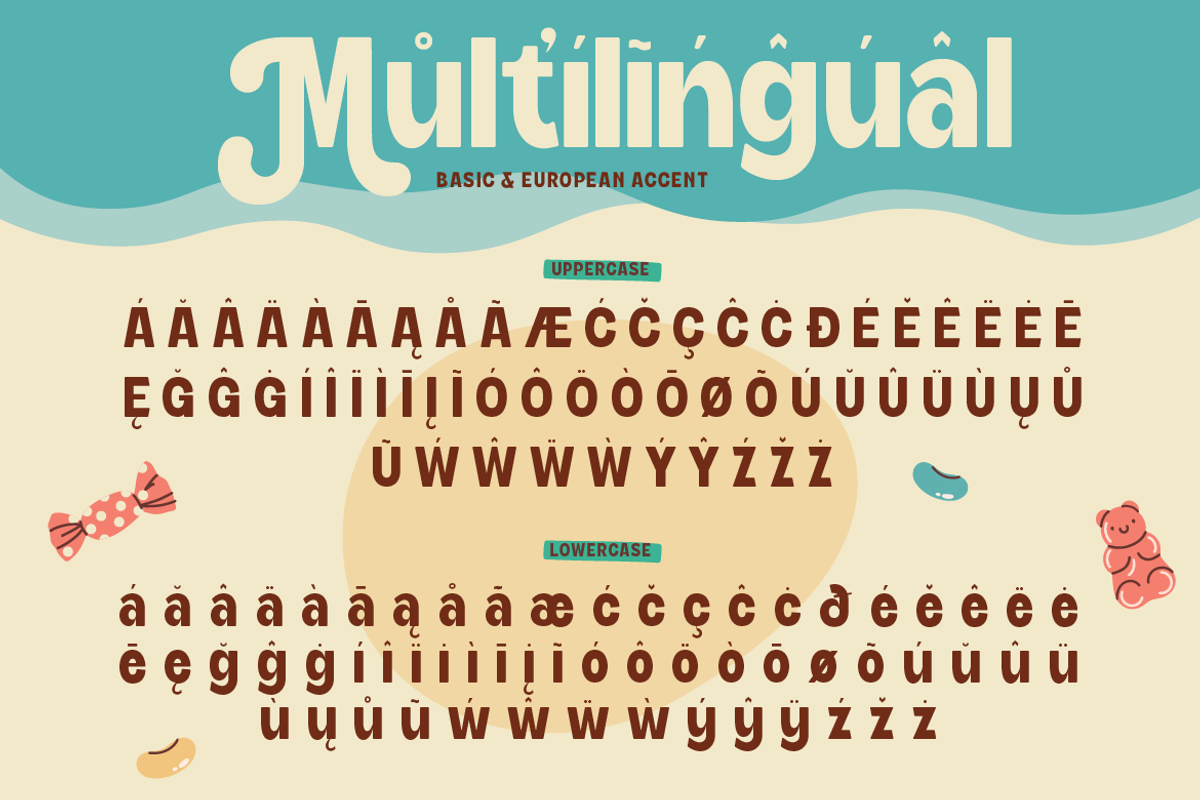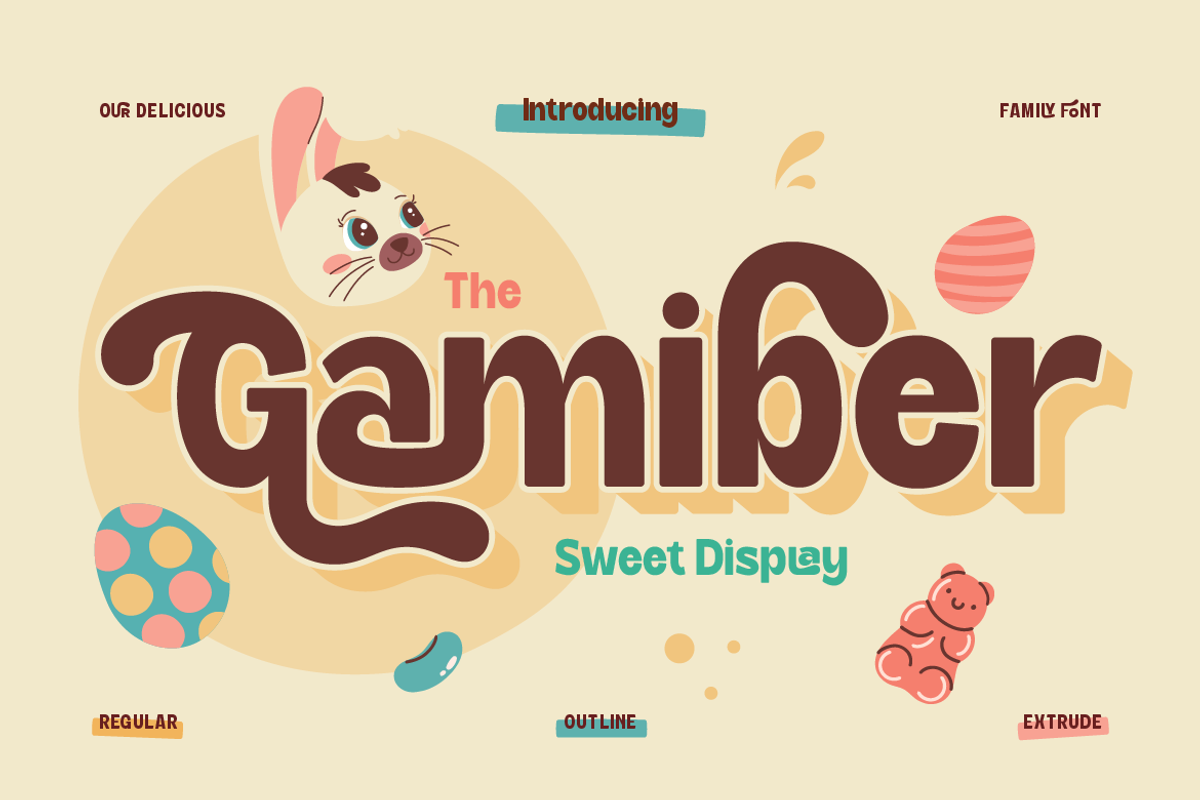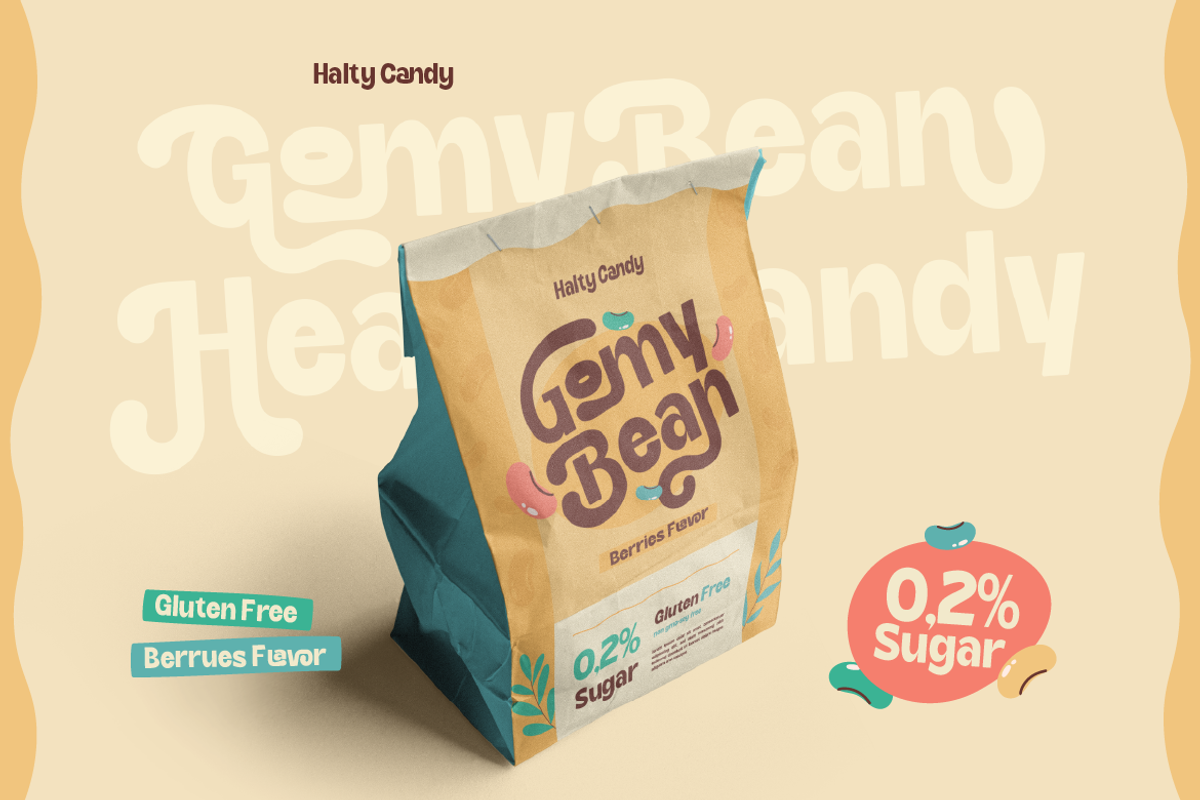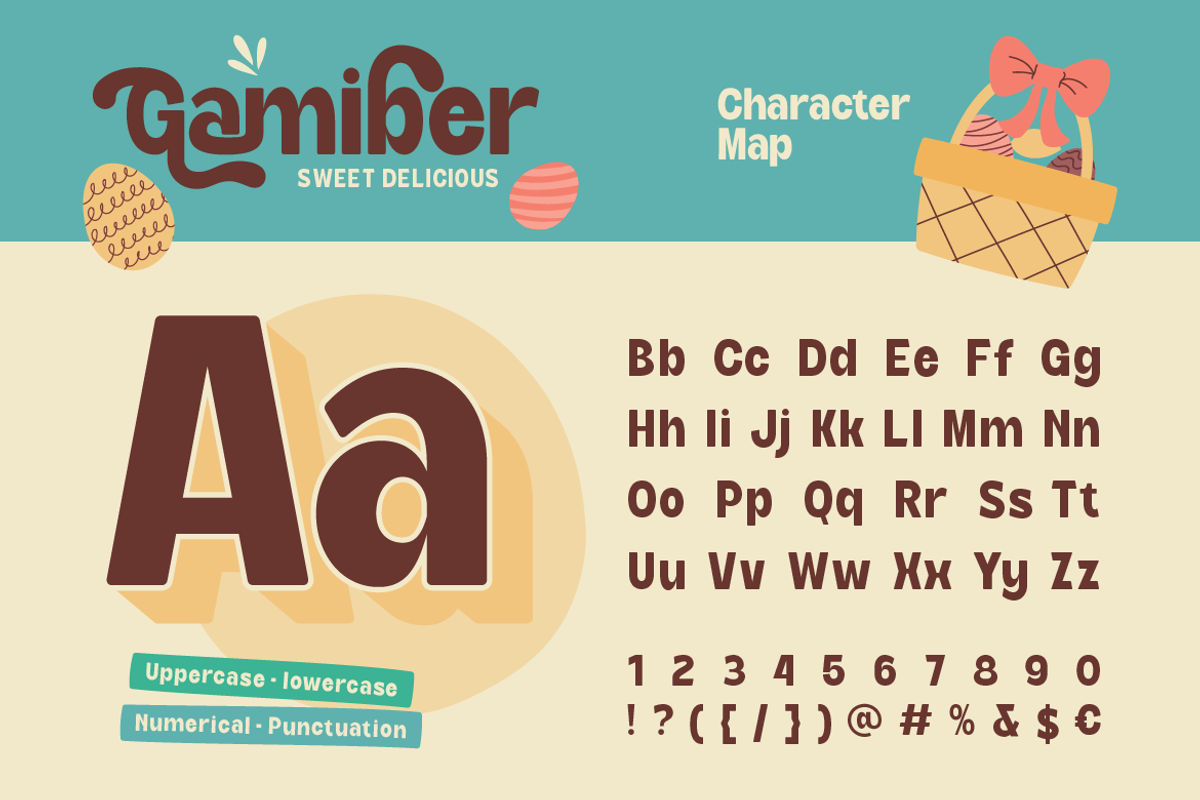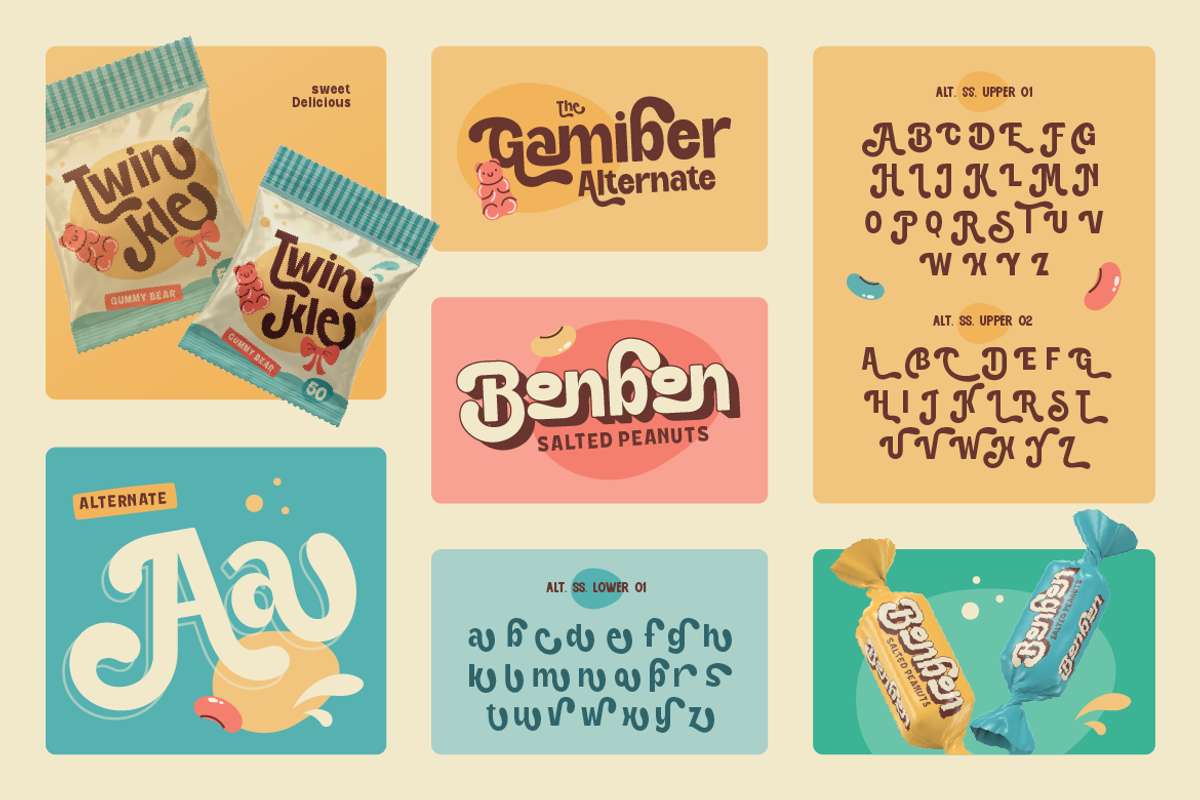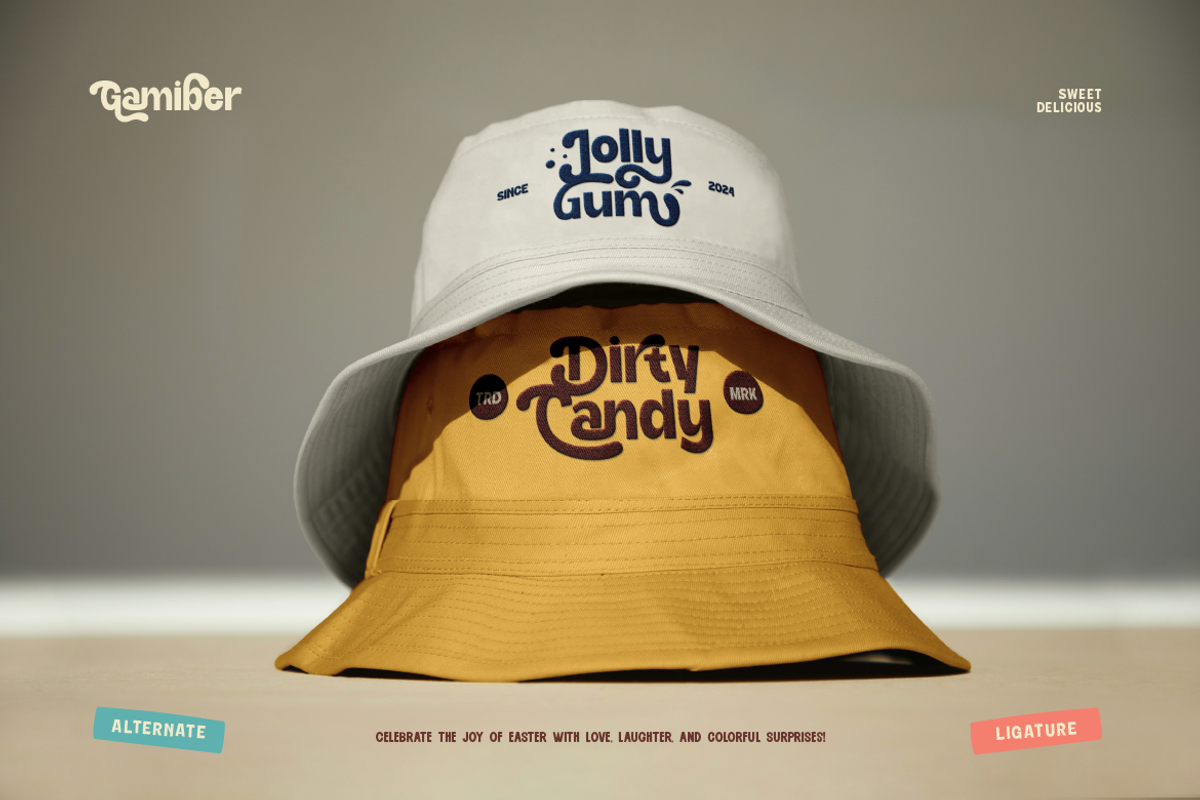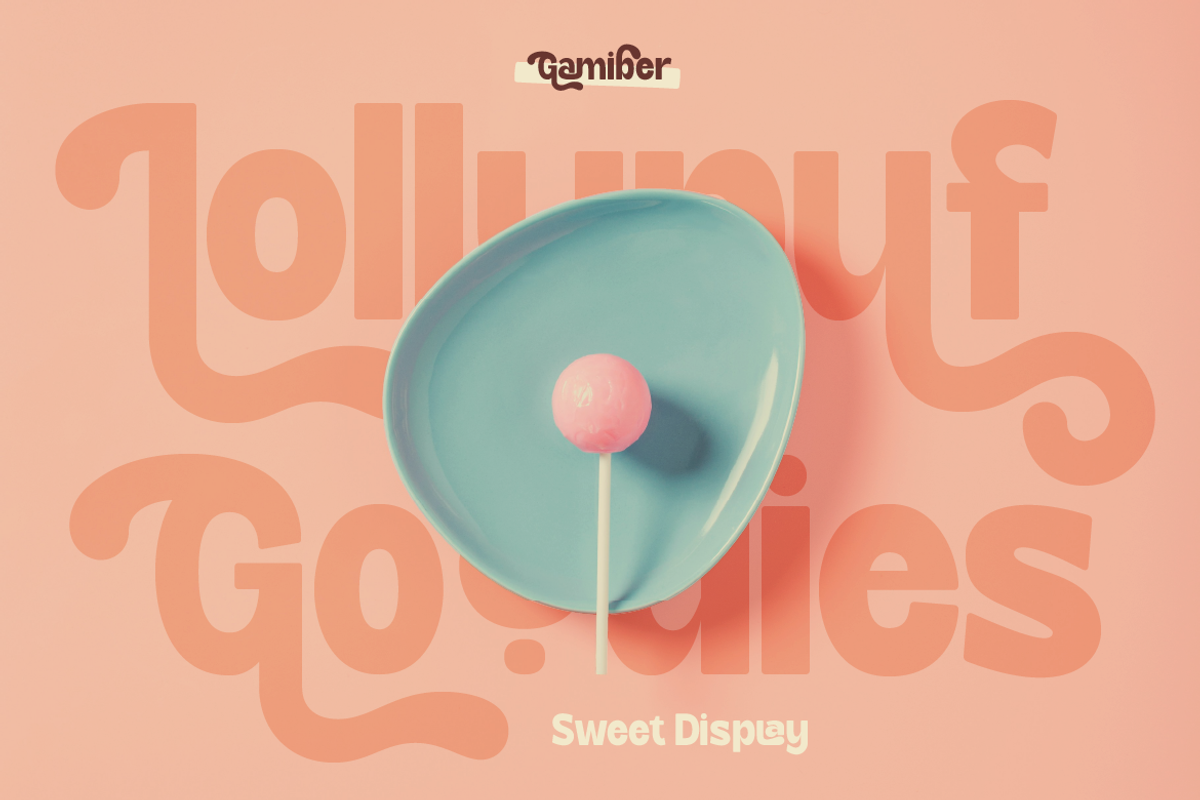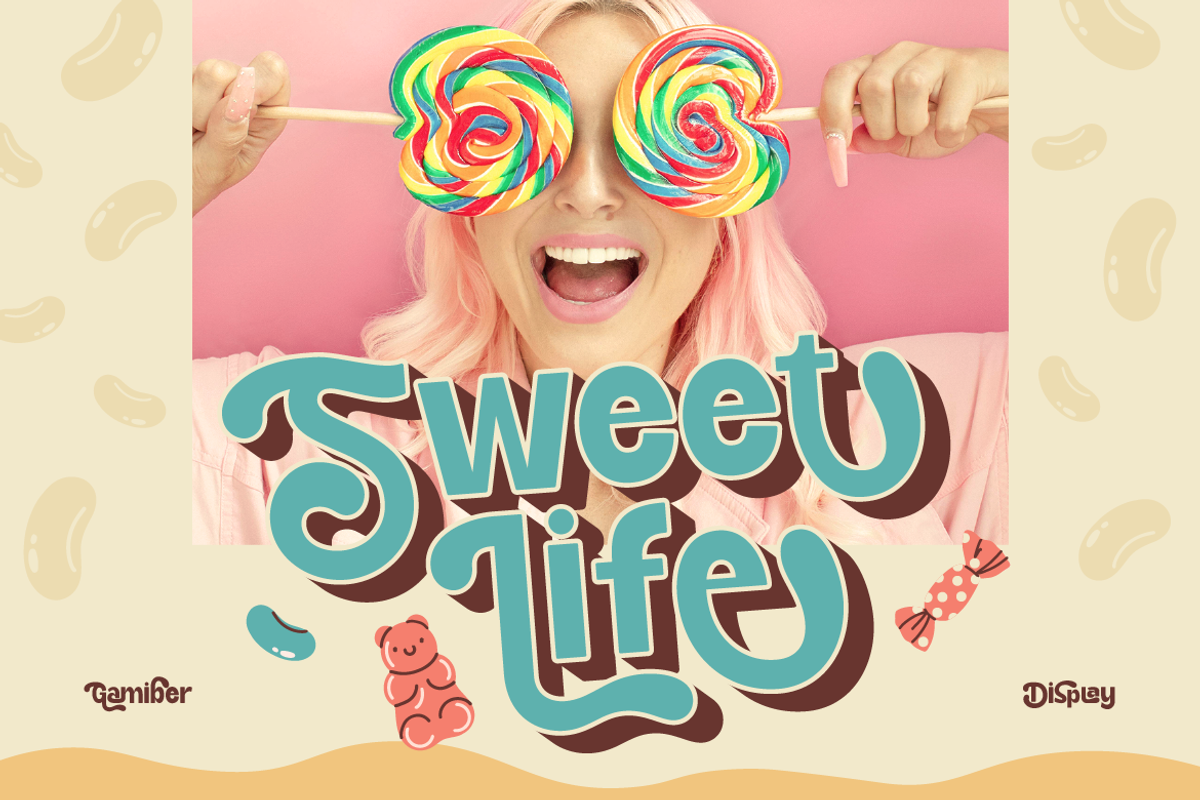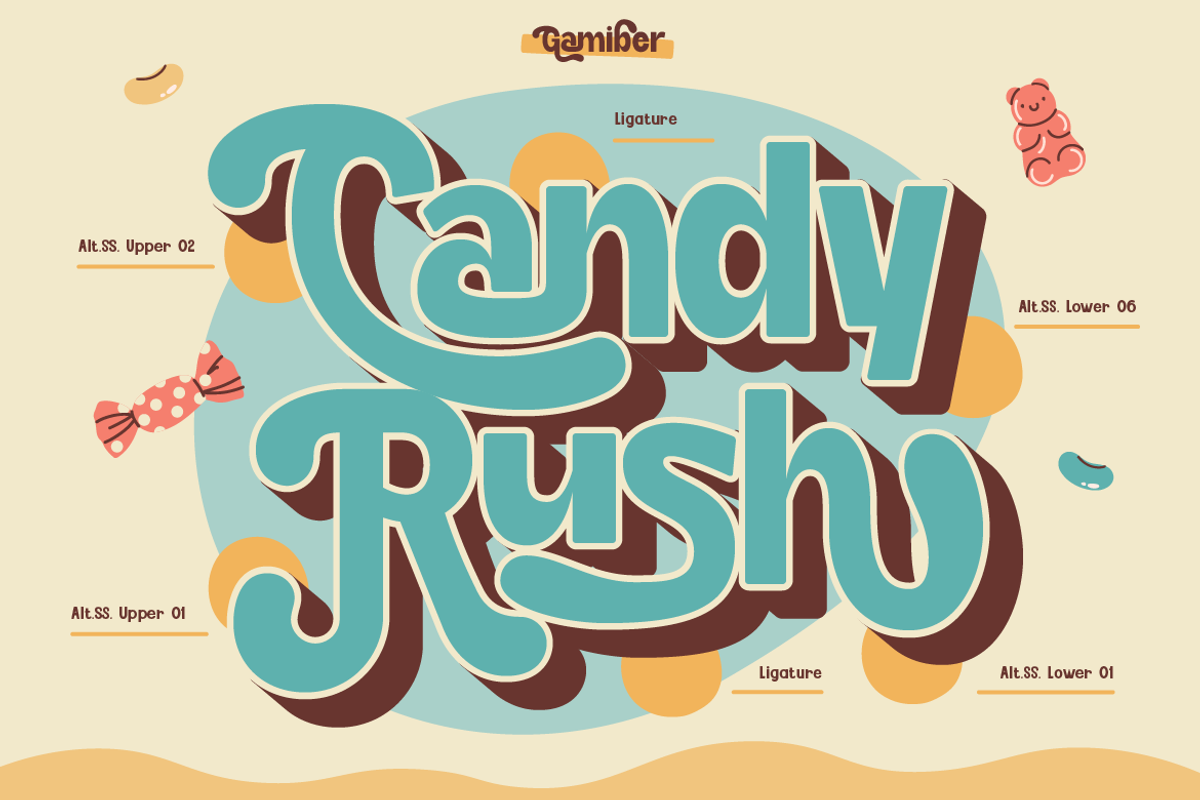
Gamiber
Say hi to Gamiber, our sweet and playful display font! This font brings a fun retro vibe with bold shapes and smooth, curvy lines. It’s perfect for cheerful and eye-catching design projects. Gamiber comes in three styles: Regular, Outline, and Extrude, making it super easy to mix and match for your designs. Whether you’re working on branding, packaging, posters, or social media, this font is a great choice—especially for food-related themes, nostalgic designs, and anything kid-friendly!
- A - Z set (Uppercase & Lowercase)